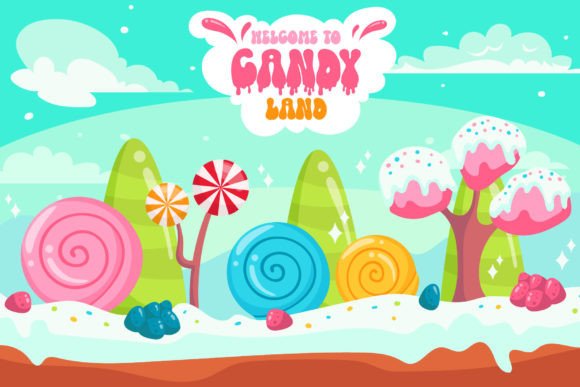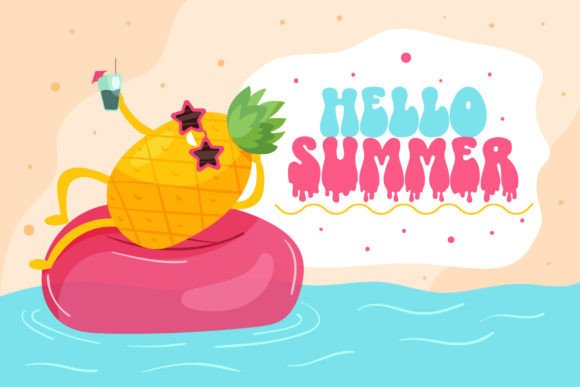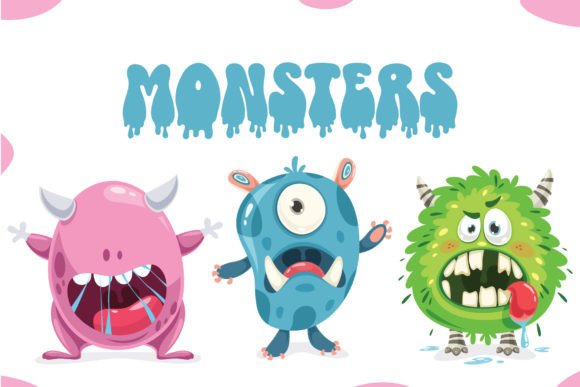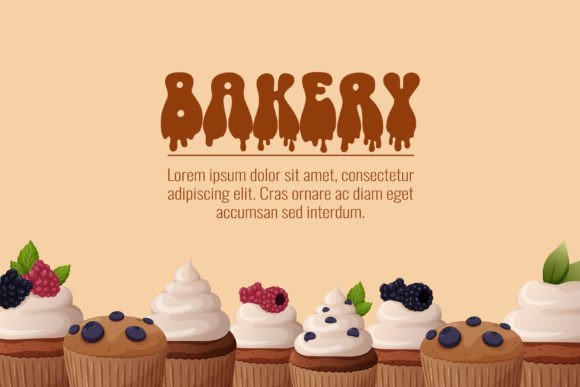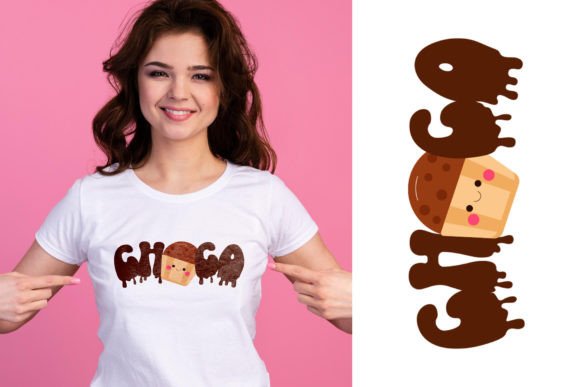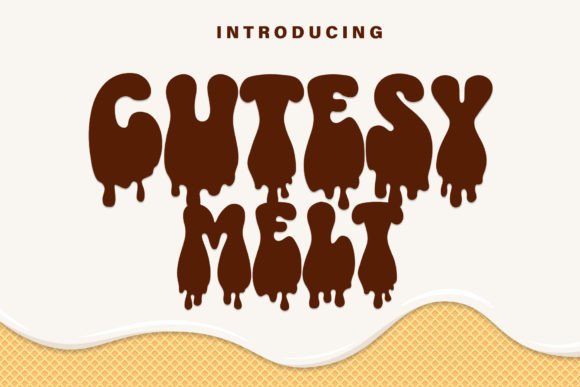
Cutesy Melt Font: Elevate Your Designs with a Playful Twist
In the world of typography, fonts play a crucial role in conveying the tone and personality of a design. For designers and crafters looking to add a touch of whimsy and playfulness to their creations, the Cutesy Melt font is an excellent choice. This decorative font takes the classic Cutesy font to new heights, offering a fresh and unique design that’s sure to make your projects stand out.
The Evolution of Cutesy Melt Font
Cutesy Melt is an innovative take on the traditional Cutesy font. While retaining the core characteristics that make Cutesy so beloved, Cutesy Melt injects a more playful and carefree spirit into its design. The result is a font that’s perfect for a wide range of applications, from digital art and crafting to branding and advertising.
Key Features of Cutesy Melt Font
- Playful Design: Cutesy Melt boasts a unique, melt-like design that adds a touch of fun and playfulness to any project.
- Versatility: This font is incredibly versatile, making it suitable for a variety of design applications, including titles, headings, and short texts.
- Easy to Read: Despite its decorative nature, Cutesy Melt remains easy to read, ensuring that your message is conveyed clearly and effectively.
- Emotional Connection: The font’s playful design helps create an emotional connection with your audience, making it perfect for projects that require a personal touch.
Cutesy Melt offers numerous benefits for designers and crafters looking to elevate their projects. Some of the key advantages include:
- Enhanced Creativity: With Cutesy Melt, you can add a unique touch to your designs, setting them apart from the competition.
- Time-Saving: The font’s versatility and ease of use save you time and effort, allowing you to focus on other aspects of your project.
- Professional Results: Cutesy Melt’s high-quality design ensures professional-looking results, even for those without extensive design experience.
Use Cases for Cutesy Melt Font
Cutesy Melt’s versatility makes it suitable for a wide range of design applications. Here are some use cases to get you started:
- Digital Art: Add a playful touch to your digital art, illustrations, and graphics.
- Crafting: Use Cutesy Melt for crafting projects, such as scrapbooking, card making, and journaling.
- Branding: Create eye-catching brand identities, logos, and advertisements with Cutesy Melt.
- Web Design: Enhance your website’s typography with Cutesy Melt, adding a touch of personality to your online presence.
Tips for Using Cutesy Melt Font
To get the most out of Cutesy Melt, follow these tips:
- Experiment with Sizes: Play with different font sizes to create visual interest and hierarchy.
- Mix and Match: Combine Cutesy Melt with other fonts to create unique and engaging typography.
- Color Matters: Choose colors that complement the font’s playful design, adding an extra layer of personality to your project.